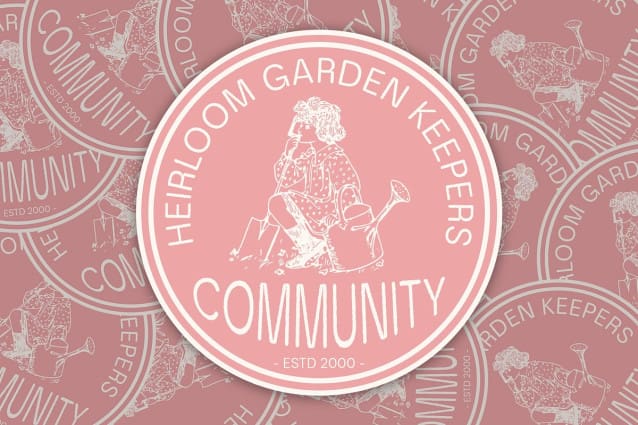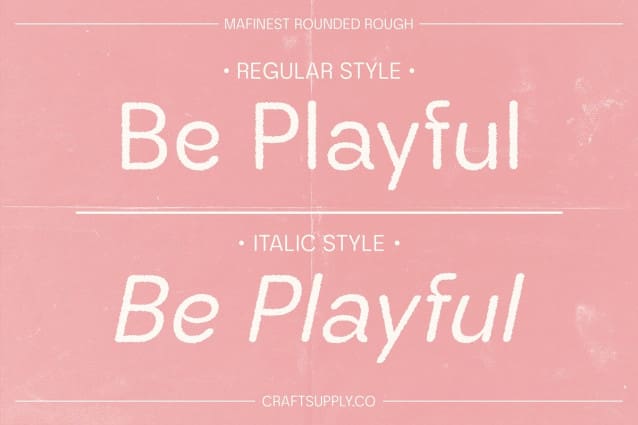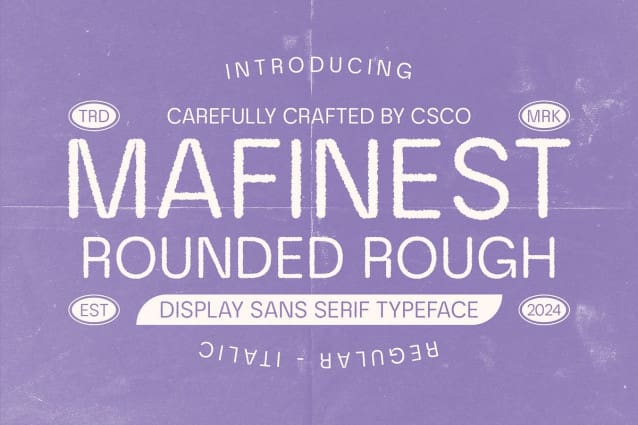
Mafinest Rounded Rough Font
Mafinest Rounded Rough Font is a modern sans-serif font that seamlessly combines grotesque and rounded shapes with a distinctive rough texture. The grotesque form provides a clean, functional look, characterized by its minimalist design and straightforward lines. Rounded corners add a layer of softness and warmth, creating a more approachable and friendly appearance. The rough texture introduces a unique dimension and character, enhancing the font’s bold and artistic edge.
Creative Texture with Bold Artistic Appeal The rough effect of this rounded rough font infuses the font with an edgy, creative flair that sets it apart from standard sans-serifs. This artistic touch adds depth and personality to the design, making it stand out with a distinctive and dynamic appearance. The combination of minimalist structure with rugged texture results in a visually compelling font that balances practicality with creative aesthetics.
Ideal for Dynamic Branding and Promotional Materials This rounded rough font excels in applications that require a fusion of modern practicality and artistic expression. Its unique blend of clean, rounded shapes and rough texture makes it perfect for dynamic branding, promotional materials, and other design projects that need a bold, modern touch.